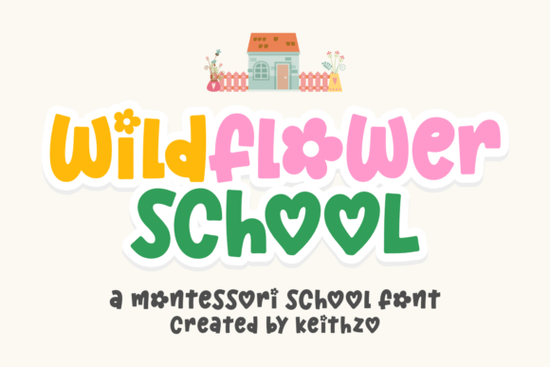
If you've been searching for a display font that feels handmade but still looks clean and professional, Wildflower School might be exactly what you need. It's a playful fonts family with an organic, hand-drawn quality that works across a surprising range of projects from classroom worksheets to children's branding to DIY vinyl cuts. Let's look at what makes it worth adding to your toolkit.
What Makes Wildflower School Different from Other Playful Fonts?
There are plenty of playful display fonts out there. So what sets this one apart? The short answer: it balances personality with precision.
Many hand-drawn fonts sacrifice readability for style. Letters get too wobbly, spacing gets inconsistent, and the result looks charming at best but messy at worst. Wildflower School avoids that trap. The letterforms have a warm, friendly character think of a teacher's neat handwriting on a whiteboard but every curve and stroke is carefully designed for consistency.
That combination makes it practical. You can use it at large sizes for headers and posters without losing that handmade feel, and it still holds up in smaller sizes for body labels or packaging details.
What Can You Use It For?
This font was built with versatility in mind. Here are some of the most common use cases:
- Educational materials Worksheets, classroom posters, flashcards, and school newsletters all benefit from a friendly, approachable typeface.
- Kids and toddler branding Toy packaging, children's apparel tags, nursery wall art, and storybook layouts are a natural fit for its warm personality.
- Crafting and DIY projects The font is optimized for cutting machines like Cricut and Silhouette, so it works well for custom vinyl decals, scrapbooking, and stamp designs.
- Print-on-demand products If you sell mugs, tote bags, or t-shirts targeting a family or educational audience, this font gives your designs a handcrafted look without looking unprofessional.
- Digital content Social media graphics, blog headers, and YouTube thumbnails aimed at parents, teachers, or young audiences.
Does It Work Well with Cricut and Silhouette?
Yes. This is one of the more practical details that crafters care about. Wildflower School is optimized for smooth cutting, which means cleaner vinyl edges, fewer weeding headaches, and less time troubleshooting your machine settings.
If you've ever used a font that looked great on screen but produced jagged or uneven cuts, you know how frustrating that can be. The clean paths in this font family make the cutting process much more predictable whether you're working with heat transfer vinyl for t-shirts or adhesive vinyl for wall decals.
How Does It Compare to Other Display Fonts?
It depends on the mood you're going for. If you need something with more of a comic book energy, a bold comic-style display font might be a better fit for certain projects. For school sports or team branding, a varsity-inspired typeface would carry the right weight and attitude.
But if your project calls for something softer and more approachable something that feels like it was made with care Wildflower School hits that sweet spot. It sits between overly casual handwritten fonts and rigid sans-serifs, which is exactly where a lot of kids' products and educational materials need to land.
For similar playful vibes, you might also want to look at a kid-friendly pop display option that works well for colorful, energetic layouts. And if you're building a broader brand system, pairing Wildflower School with a more structured secondary font or something like a whimsical display choice for headlines can give your designs more visual range.
What About Storybook and Nursery Projects?
This is one of the font's strongest applications. Children's book designers and nursery decor creators often struggle to find typefaces that feel warm without being childish. Wildflower School manages to be playful and expressive while staying legible which matters when parents are reading aloud to toddlers or when text appears alongside detailed illustrations.
If you're working on a storybook layout with a vintage aesthetic, pairing it with something like a vintage Victorian display font for chapter titles could create an interesting contrast.
Quick Checklist Before You Buy
- Check the license Make sure it covers your intended use, especially for print-on-demand or commercial products.
- Test it at multiple sizes Preview both large headings and smaller labels to make sure it works for your specific project.
- Try it on your cutting machine Run a small test cut before committing to a full project.
- Pair it wisely Use a clean sans-serif for longer text blocks and let Wildflower School handle headlines and display text.
If most of your design work targets families, educators, or young audiences, Wildflower School is a solid, well-rounded addition to your font library. Start with one project a classroom poster or a simple vinyl decal and see how it fits your workflow.